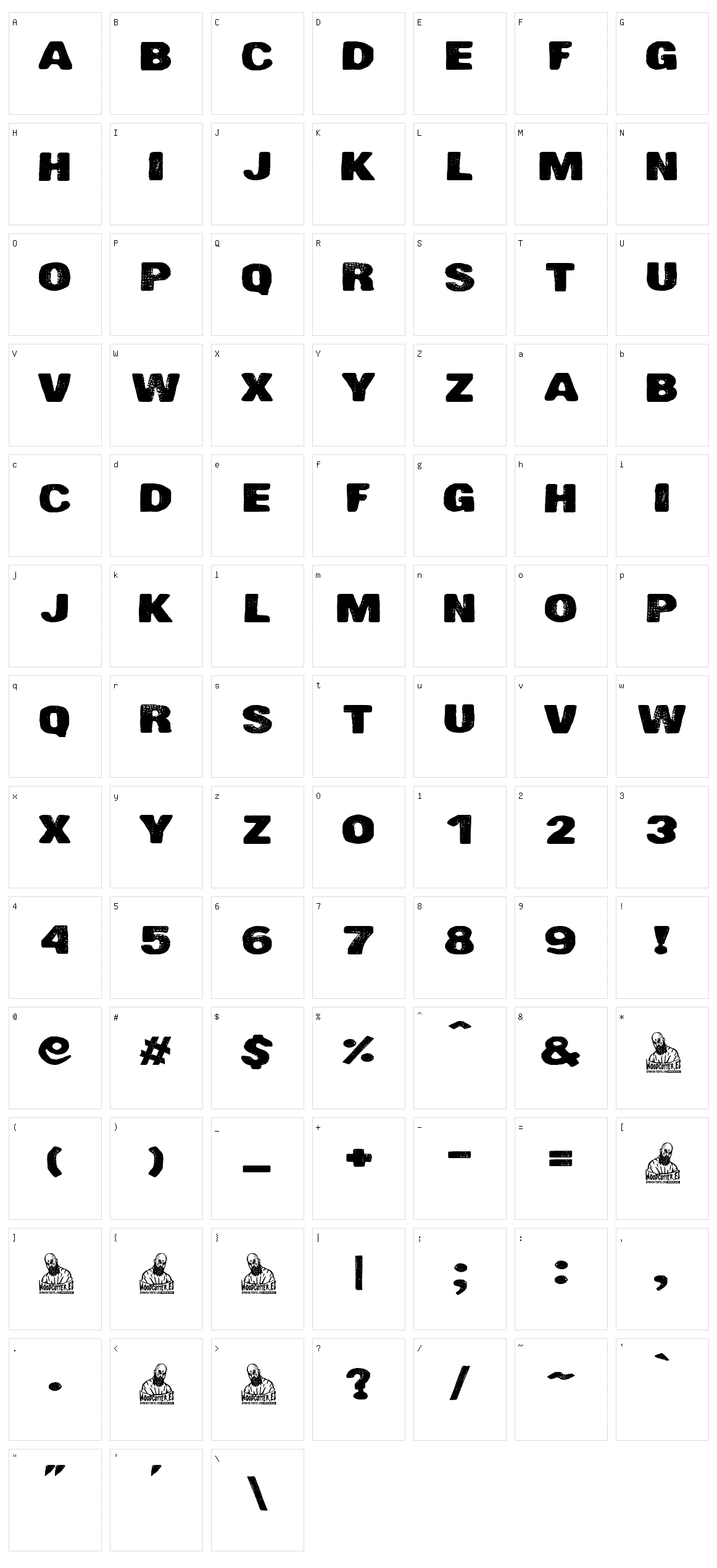
The free font Crimen en Levante is carefully designed by Woodcutter, showcasing a thoughtful balance of creativity and usability and falls under the Eroded font style. When you download the ZIP file, it contains only 155.68 KB of font files, making it lightweight and quick to download. Please review the license details below to understand permitted usage and distribution rights. If license information is not available, we recommend using this font for personal projects only or contacting the author directly for commercial usage permissions.